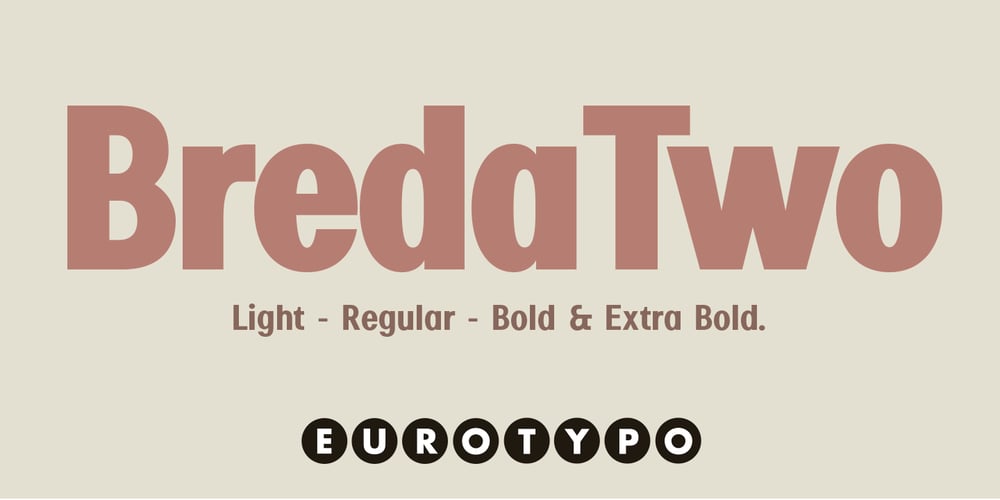
Breda Two
Breda Two font
Breda Two Font Family was designed by Olcar Alcaide and published by Eurotypo. Breda Two contains 6 styles and family package options. Breda Two is the condensed version of the Breda family, but it is presented as an independent family of fonts because they can work as a single face in your design.As a Breda font, this style is austere, functional and clear, emerged from straight lines and primary shapes.Breda Two is released in four weights with two italics.